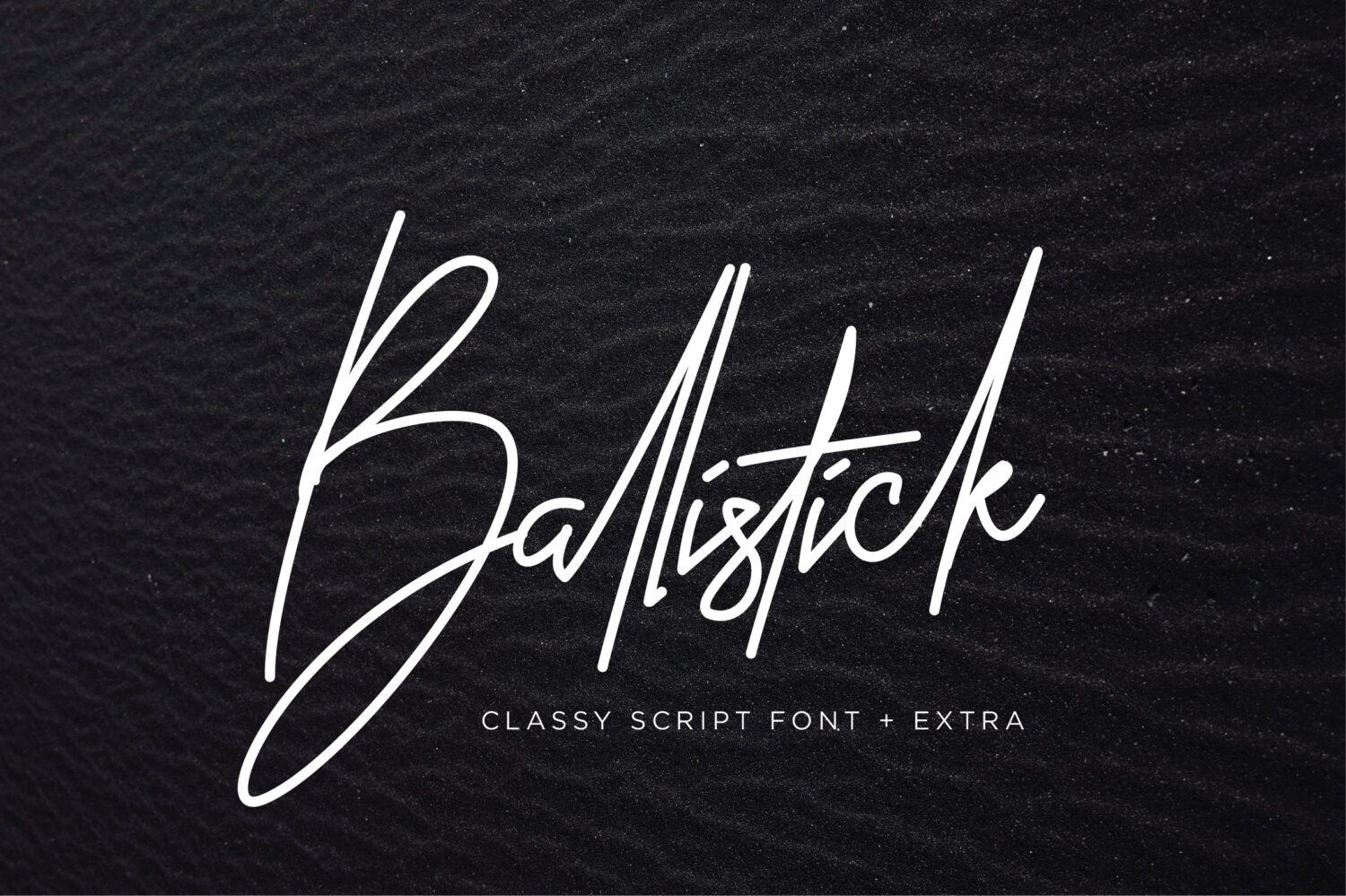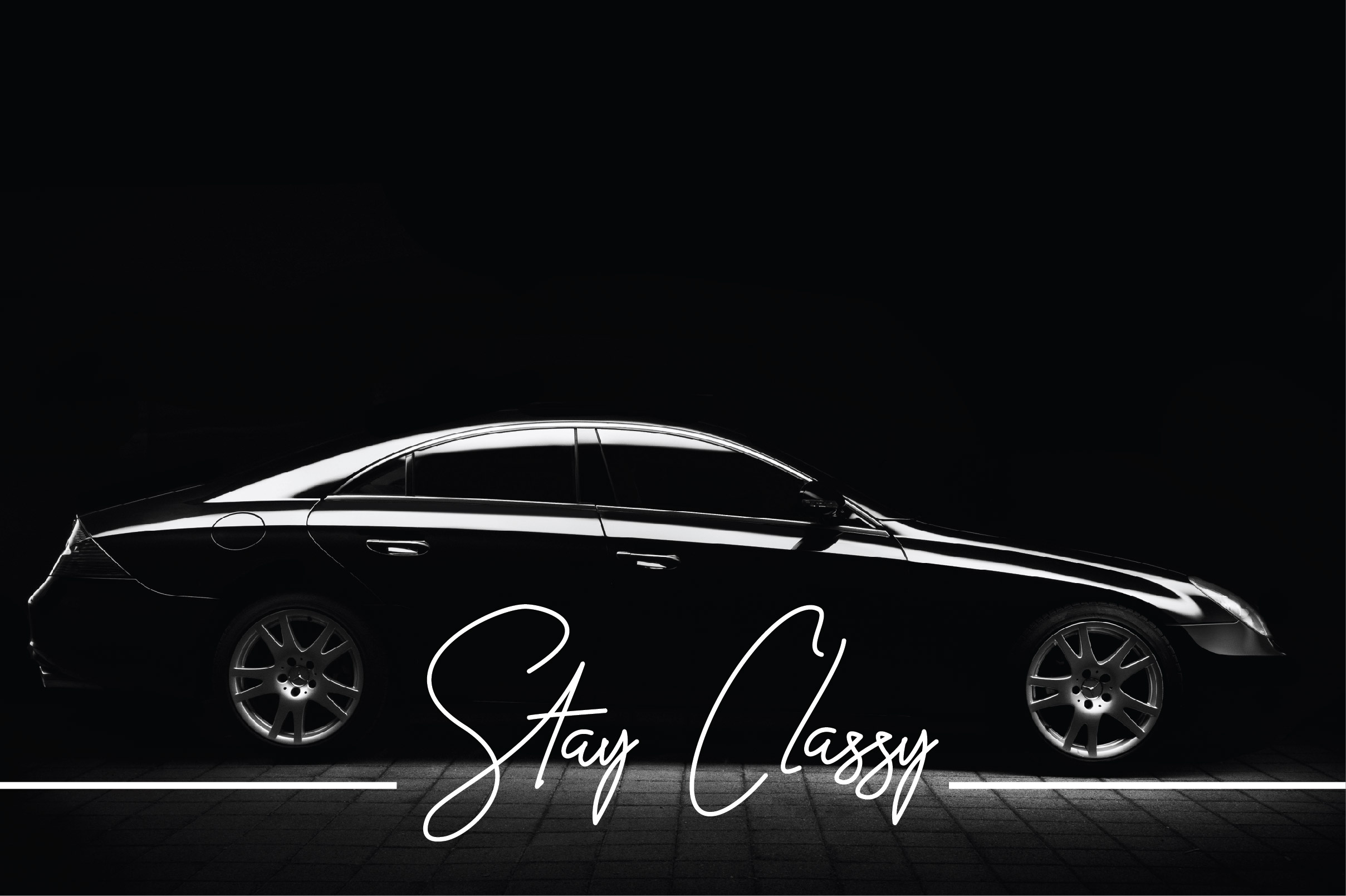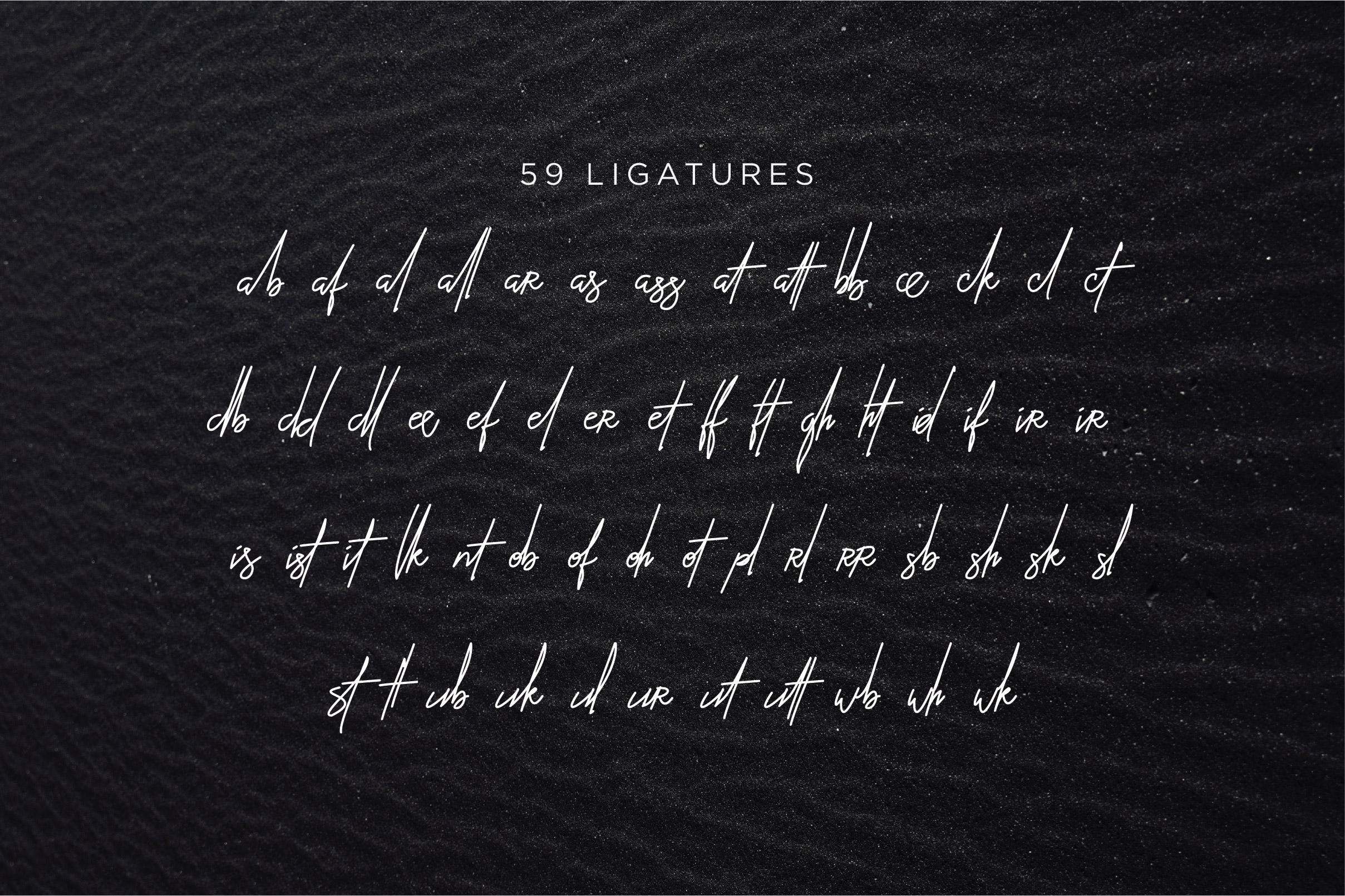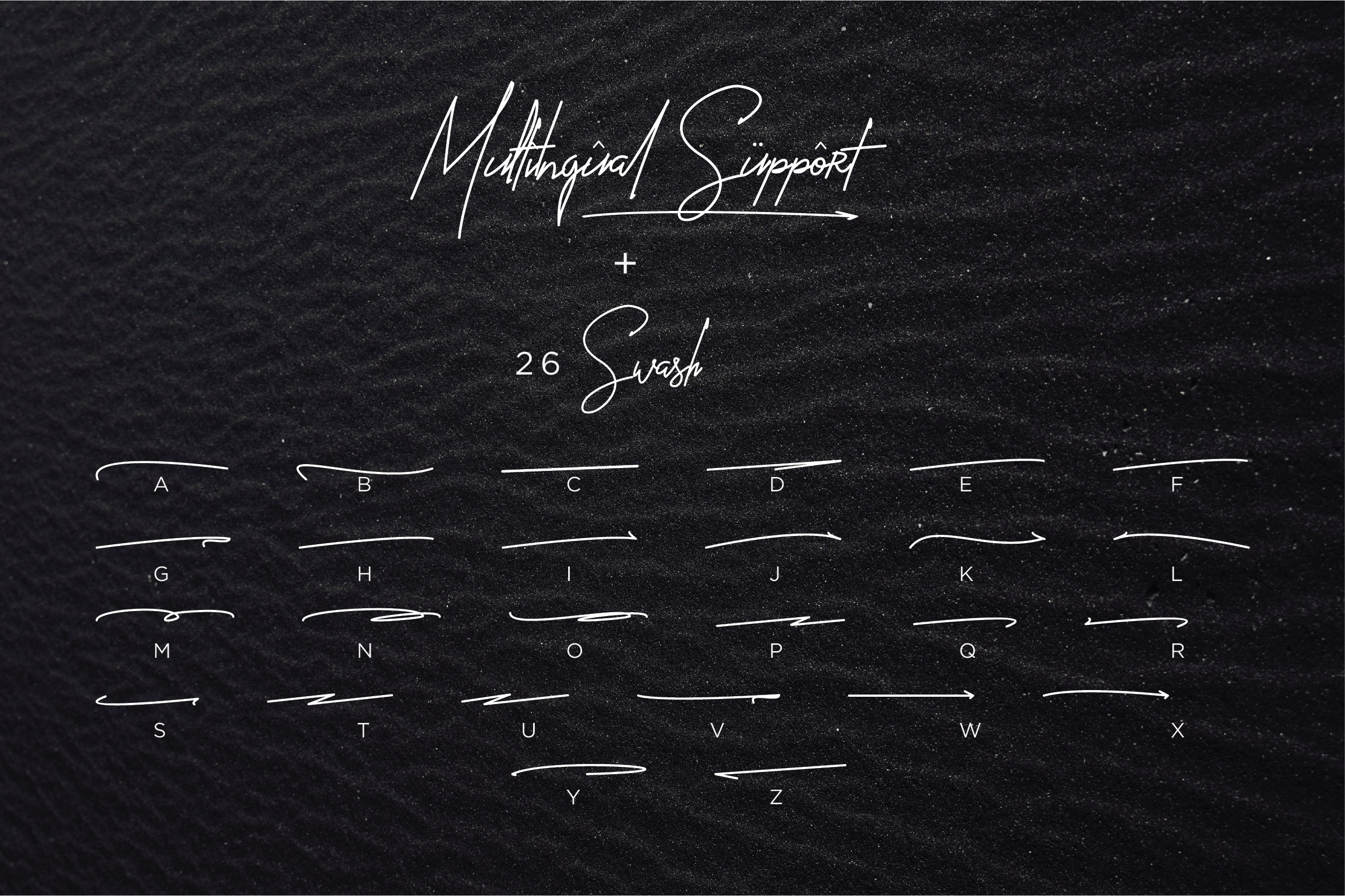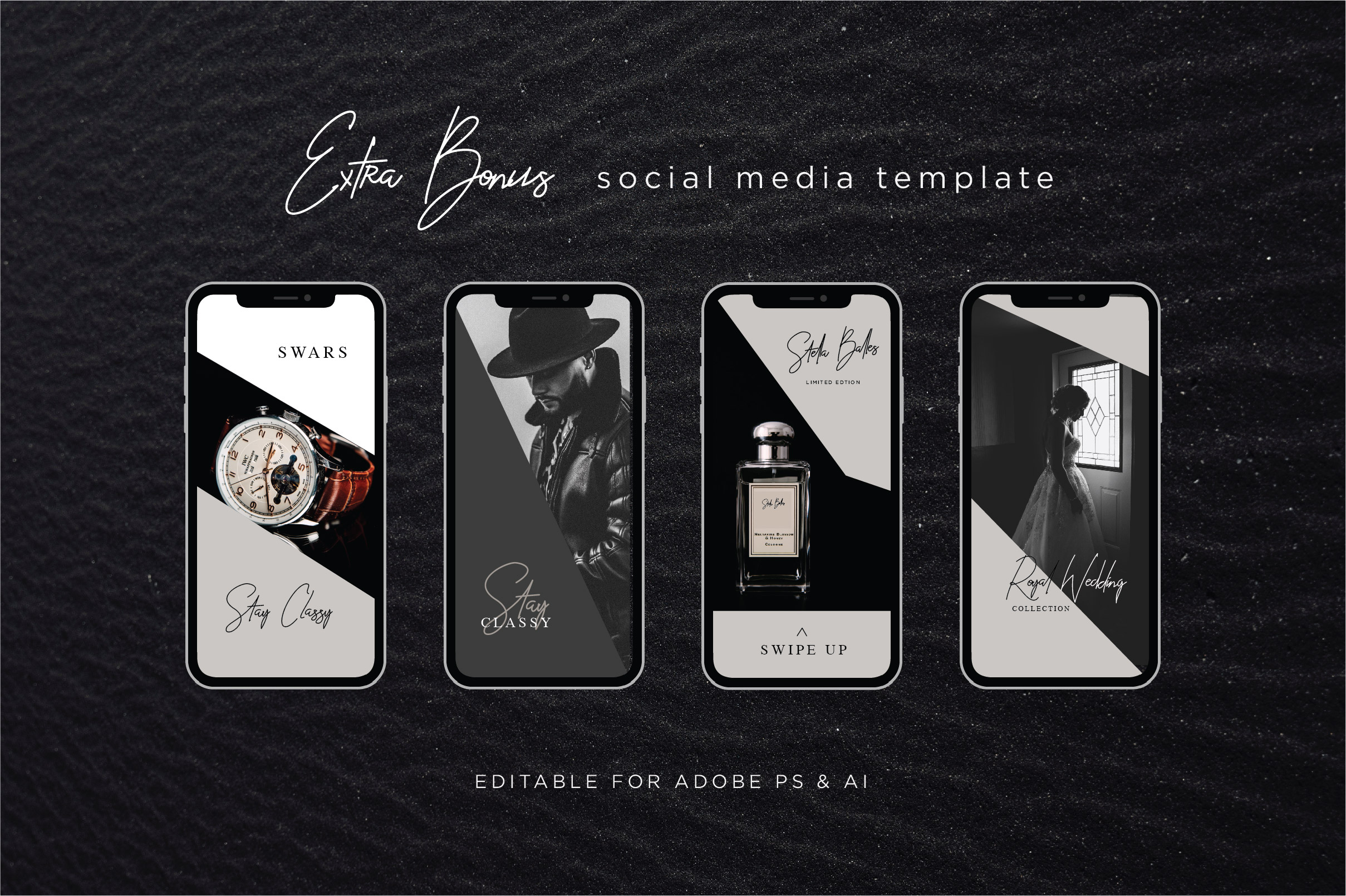
Ballistick Free Font
Ballistick Free Font is a contemporary signature script font Beautiful & Classy typographic harmony for design projects, including logos & branding, wedding designs, social media posts, advertisements & product designs. This free typeface was designed by a talented Nirmana Visual. If you like it don’t forget to check out the full version.